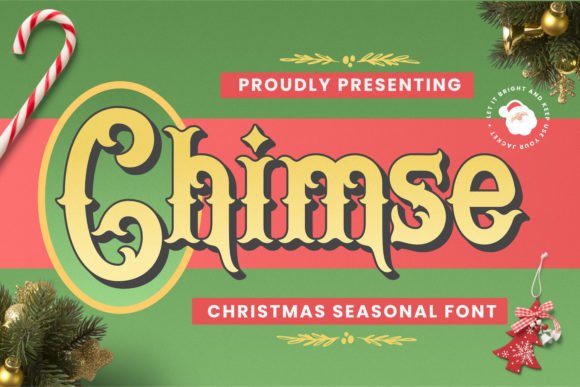
The Perfect Touch: Elevate Your Designs with Chimse Font
There’s nothing quite like the thrill of bringing an idea to life. You’ve spent hours brainstorming, sketching, and refining, and finally, you’re ready to unleash your creation on the world. But sometimes, it’s the little details that make all the difference. That’s where the Chimse Font comes in – a highly detailed and vintage styled blackletter font that’s sure to add a touch of elegance to any project.
This versatile font is more than just a pretty face; it’s a powerful tool that can elevate even the most mundane designs into something truly special. Whether you’re working on a logo, a poster, or a book cover, the Chimse Font has the potential to take your work to the next level.
Key Features of Chimse Font
• Unique Characteristics: Chimse Font features a unique blend of traditional and modern design elements, with intricate details and ornaments that set it apart from other fonts.
Designer Review: Chimse Font
Overall, I have mixed feelings about the Chimse Font. On the one hand, there are some aspects that I appreciate.
• Creativity and originality – The font’s unique design and aesthetic appeal to me.
• Expressive nature – Chimse Font is perfect for making a statement or adding a touch of personality to a design.
• High legibility – Despite its complex design, the font remains easy to read, even at smaller sizes.
• Limited use cases – Chimse Font is better suited for informal or creative projects rather than formal or professional ones.
• May be distracting – The font’s unconventional design may be overwhelming or distracting in certain contexts.
• Lack of consistency – The font’s irregularities and variations can make it difficult to use consistently throughout a design.
Overall, I think the Chimse Font is an interesting and creative choice for designers who want to add some personality to their work. However, it’s essential to be aware of its limitations and use it judiciously.
Tips for Getting the Most Out of Chimse Font
Chimse Font is a versatile font that can be used for a variety of purposes. Here are a few tips for getting the most out of it:
1. Use Chimse Font for titles and headings to add a touch of elegance and sophistication.
2. Experiment with different font sizes and styles to create visual interest.
3. Pair Chimse Font with other fonts to create a unique and eye-catching combination.
Chimse Font is commonly used for:
1. Wedding invitations and stationery
2. Business cards
Alternatives to Chimse Font for Designers
Playfair Display is a high-end serif font that is perfect for luxury brands, magazines, and any project that requires elegance and sophistication. It has a classic feel with a touch of modernity, making it an excellent alternative to Chimse Font.
Compared to Chimse Font, Playfair Display is more refined and sophisticated. While Chimse Font is a modern sans-serif font, Playfair Display has a traditional feel that is ideal for high-end projects.
Lato is a clean and modern sans-serif font that is perfect for digital products, websites, and applications. It is highly legible and versatile, making it an excellent choice for a wide range of projects.
Compared to Chimse Font, Lato is more modern and minimalist. While Chimse Font has a unique feel, Lato is more straightforward and easy to read, making it an excellent choice for digital projects.
Merriweather is a classic serif font that is perfect for books, magazines, and any project that requires a traditional feel. It is highly legible and has a timeless quality that makes it an excellent alternative to Chimse Font.
What is the recommended font size and line height for the Chimse Font?
The recommended font size for the Chimse Font is between 10pt and 24pt, depending on the application and intended use. A line height of 1.2 to 1.5 times the font size is recommended to ensure optimal readability and legibility.